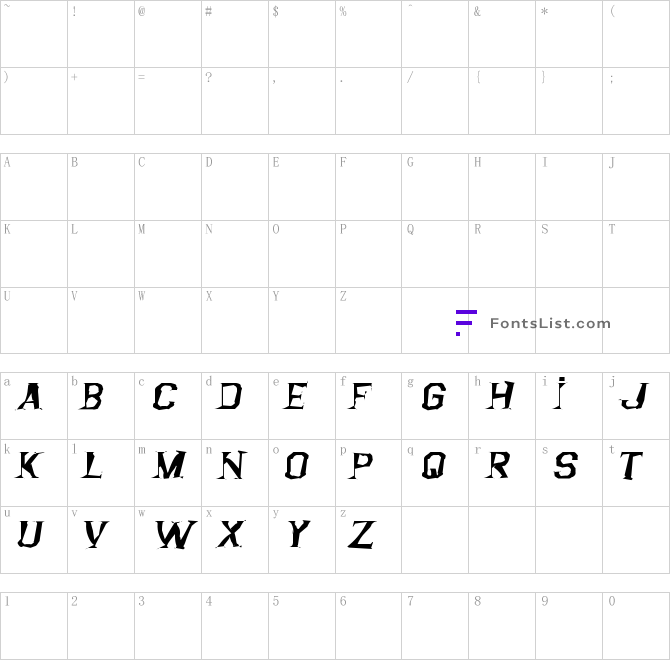
- Font Name:Argentina Austral
Argentina-Austral.ttf is a very beautiful artistic font, Argentina-Austral.ttf is widely used in the design and printing of various books and pictures,Argentina-Austral.ttf has a strong visual impact,Argentina-Austral.ttf is a commonly used font in newspapers, magazines and books, and is used in posters, e-commerce Poster design, store design, logo design, font design and other fields.Argentina-Austral.